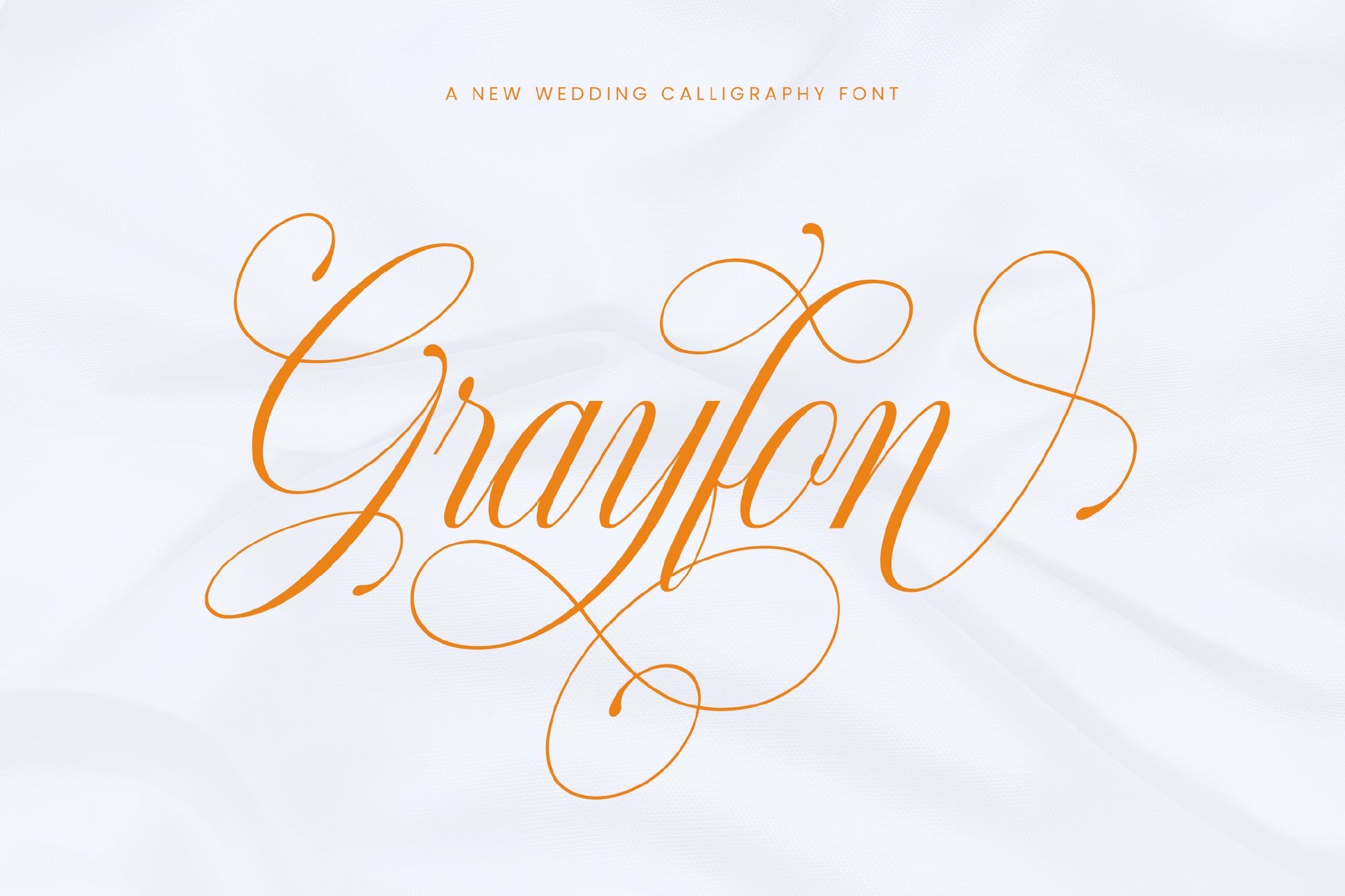
Grayfon – Wedding Calligraphy Font
Grayfon – Wedding Calligraphy Font  is a stylish typeface that enhances visual appeal and works effortlessly in many design contexts. Grayfon is an elegant wedding calligraphy typeface designed to capture the beauty of romantic moments with a graceful and flowing style. Featuring delicate strokes, smooth curves, and natural handwritten movement, Grayfon creates a soft and sophisticated look that feels both timeless and heartfelt. Its refined calligraphy character makes it perfect for designs that celebrate love, elegance, and special occasions. Whether for invitations, branding, or decorative typography, Grayfon brings a luxurious and romantic touch to every composition.